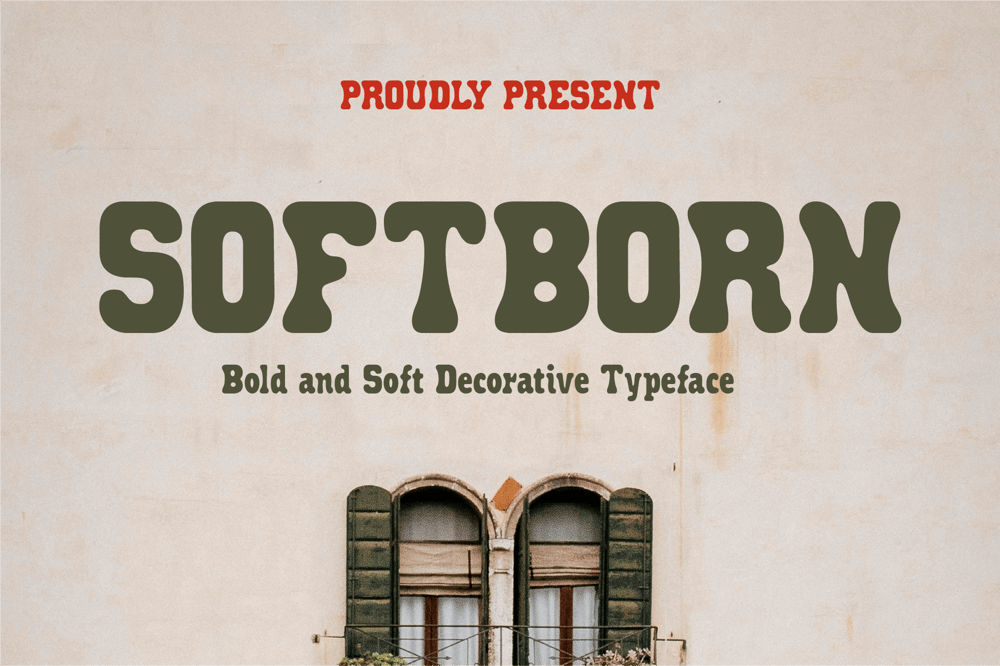
CF Softborn Font Family was designed by Dede Kurniawan and published by Creatifont Studio. CF Softborn contains 3 styles and family package options. Softborn a bold yet gentle decorative typeface that strikes a perfect balance between strength and warmth. With its soft, rounded edges and thick letterforms, Softborn exudes a retro-inspired charm while remaining highly versatile for modern design applications. Perfect for branding, posters, packaging, or headlines, this typeface commands attention while maintaining a friendly and approachable feel. Its unique blend of boldness and softness makes it a standout choice for creative projects that need a touch of nostalgia and personality.A SUMMARY OF WHAT’S INCLUDED:- Standard Character A-Z, a-z, 0-9, Punctuation & symbols- Regular, Italic & 3D- Works on PC & Mac- Simple installation- Accessible in Adobe Creative Suite (Ai, Ps, Id, etc.) even work on Microsoft Word.- PUA Encoded Characters – Fully accessible without additional design software.🌟If you come across any issues or notice anything we might have overlooked while using this product, please feel free to reach out to us. We greatly value your feedback as it helps us enhance and refine our products. Thank you!